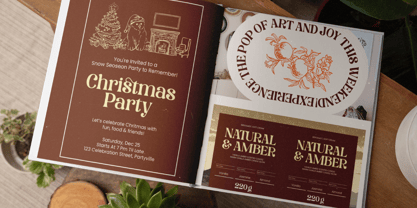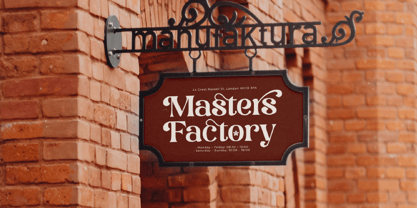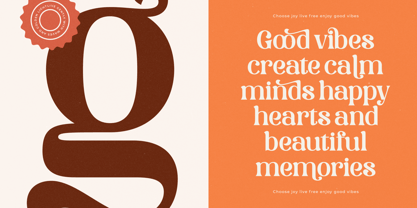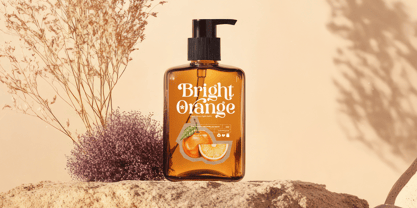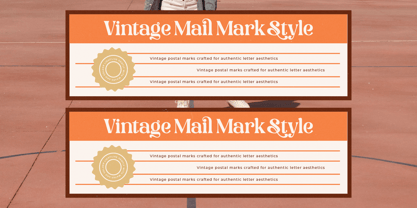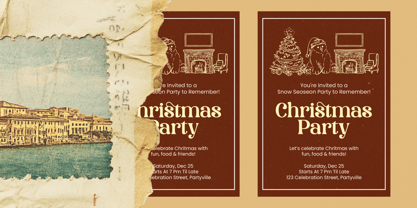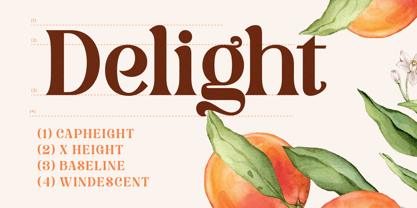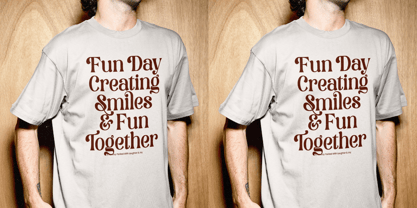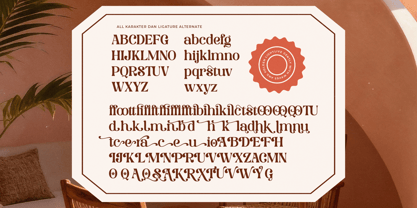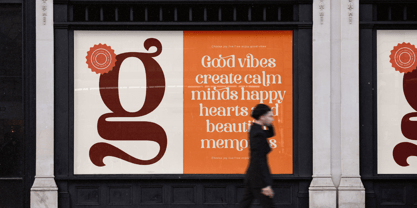
Corselust
by Timelesstype Studio
The Corselust Font Family was designed by Heru Utama Putra and published by Timelesstype Studio. Corselust contains 2 styles and family package options. More about this family
Corselust is a retro-inspired modern serif with bold personality and timeless editorial charm. Terinspirasi era 1986–1996, font ini menghadirkan kurva dramatis, serif ornamented, dan bentuk karakter yang kuat namun tetap refined. Cocok untuk book covers, magazine layouts, branding premium, poster retro, hingga headline yang benar-benar ingin menarik perhatian. Dengan 19 ligatures dan 68 alternates, Corselust memberi fleksibilitas kreatif untuk membangun komposisi tipografi yang unik, berkarakter, dan penuh energi vintage-modern.